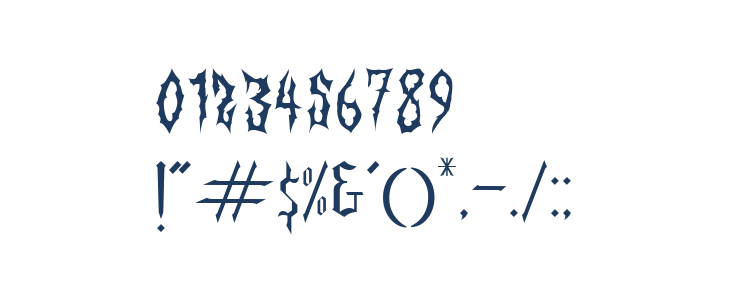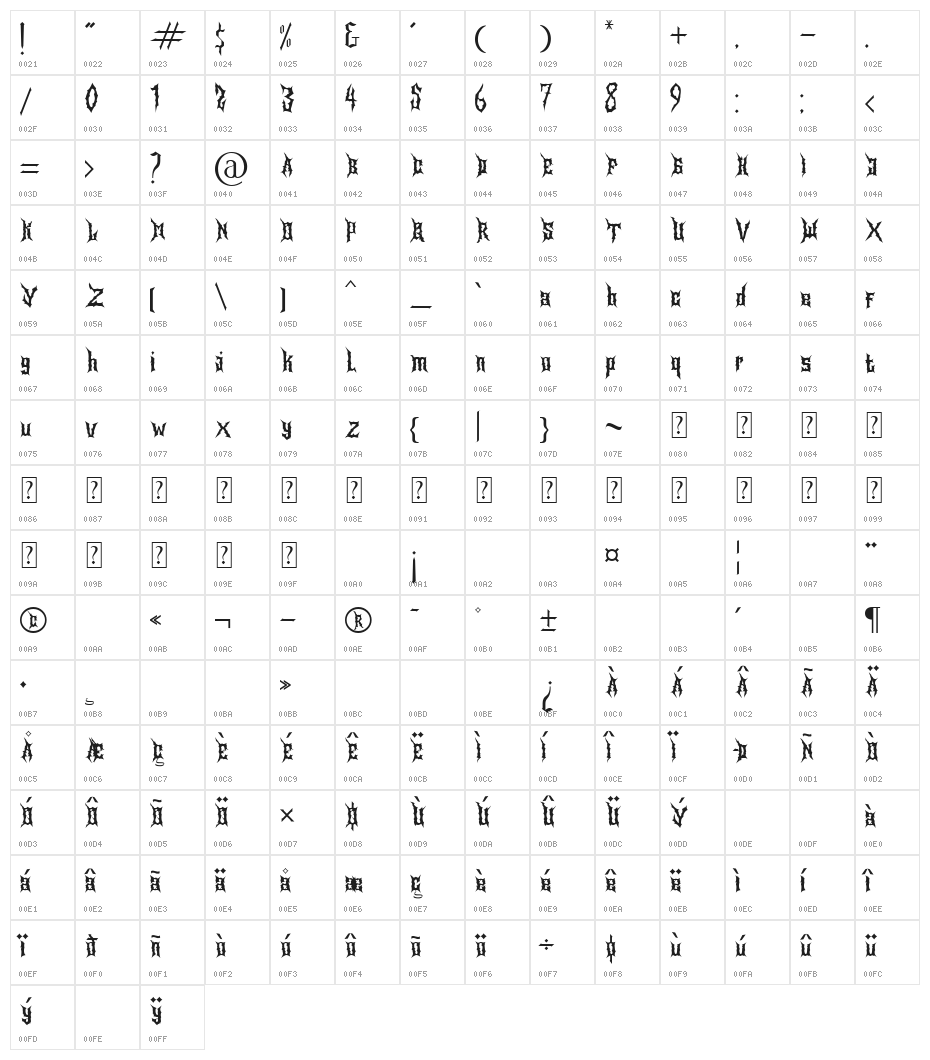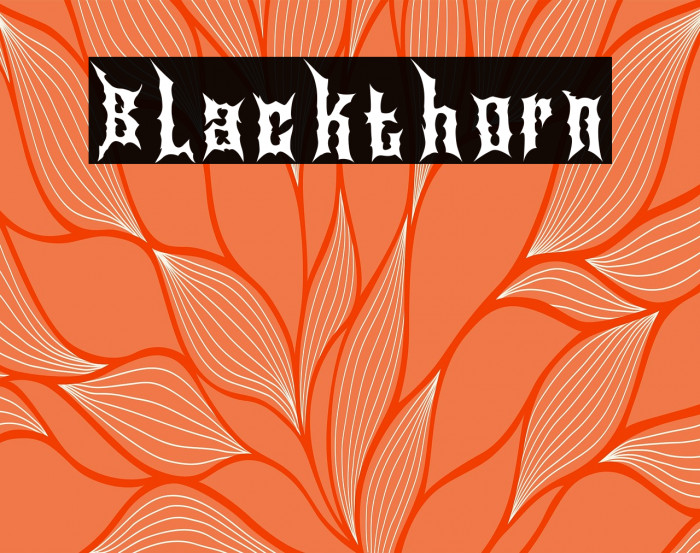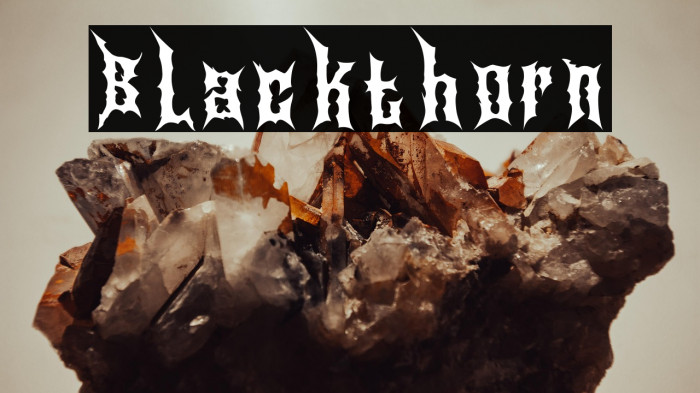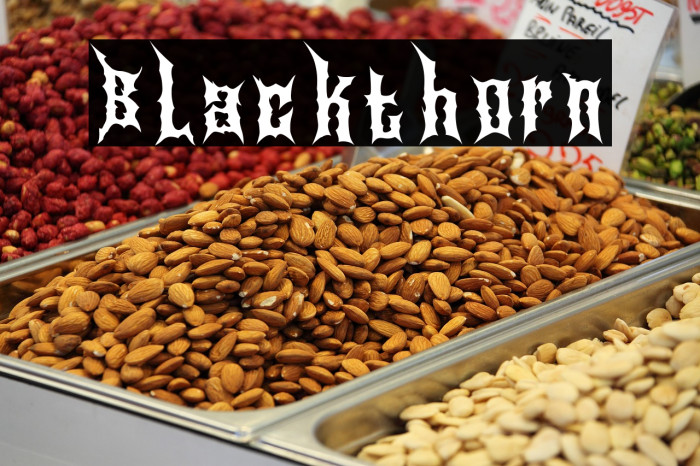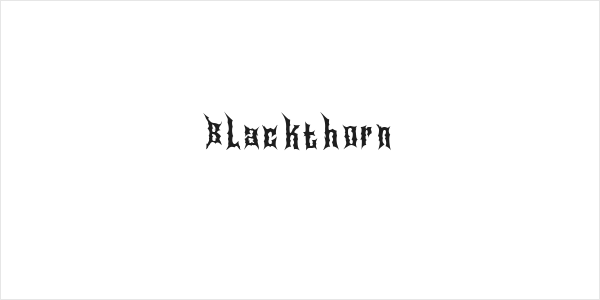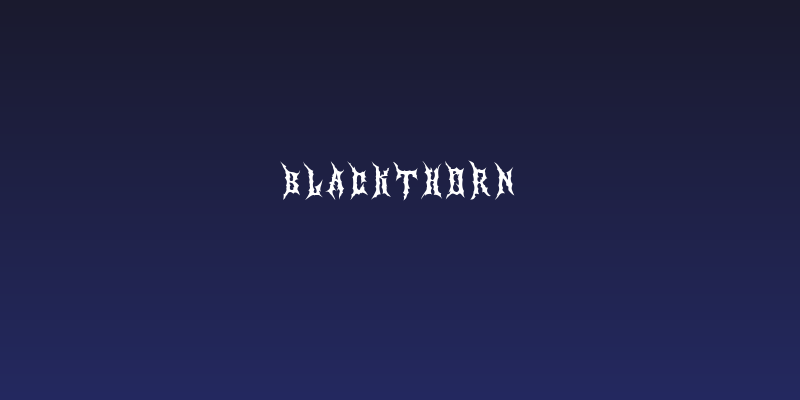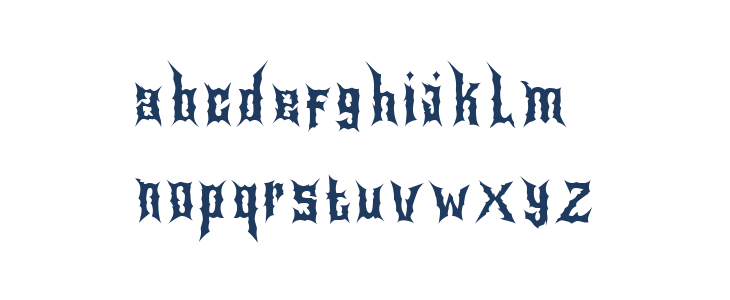
Blackthorn Font
Blackthorn Description
This font features a bold and jagged design, reminiscent of sharp thorns or spikes, giving it a distinctly edgy and aggressive appearance. The characters are highly stylized with pointed edges and irregular forms, creating a sense of movement and energy. The uppercase and lowercase letters maintain a consistent style, with each character exhibiting unique angles and curves that contribute to the overall dynamic look. The numerals and special characters follow the same aesthetic, ensuring a cohesive visual experience. This font is ideal for projects that require a strong, impactful presence.